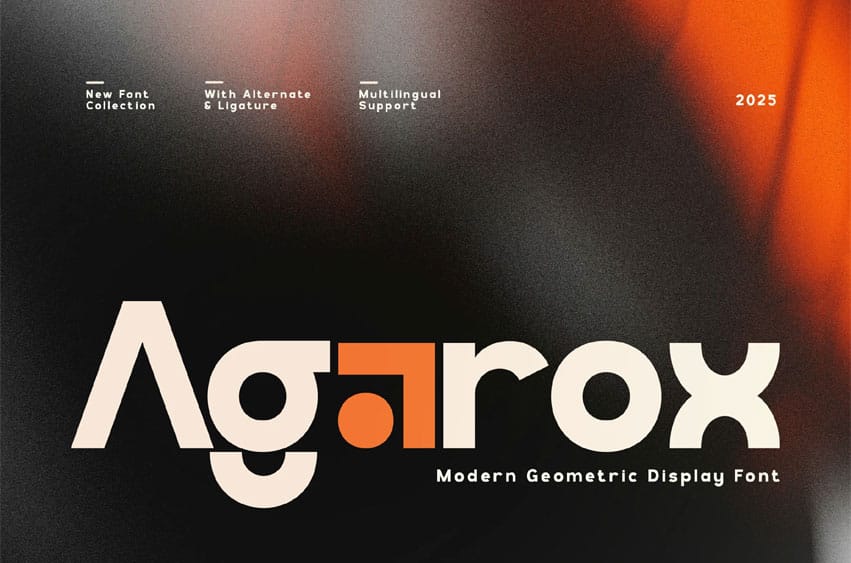
Agarox Font is a modern geometric display font with a bold, confident presence. Its strong lines and precise curves create a striking balance of power and style, making it ideal for logos, posters, headlines, and branding that demands attention. Featuring alternate characters, ligatures, and multilingual support, Agarox offers versatility while maintaining its modern, impactful aesthetic.
- Uppercase alphabet A-Z
- Lowercase alphabet a-z
- Numbers 0-9
- Some punctuation
- Alternates & Ligatures
Why Agarox Stands Out:
With its contemporary geometric design, Agarox doesn’t just follow trends—it sets them. Each glyph is refined for both aesthetic impact and clarity, making it ideal for creative professionals who want a strong typographic voice. Whether you’re designing for luxury brands, futuristic tech, modern architecture, lifestyle, or high-fashion, this font adds a signature presence that communicates confidence.